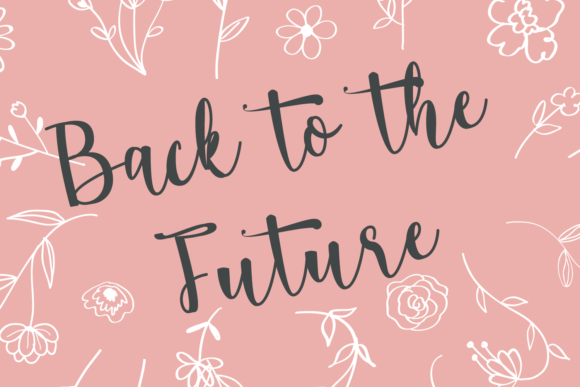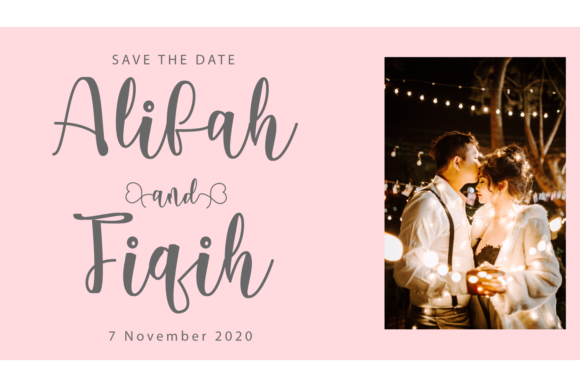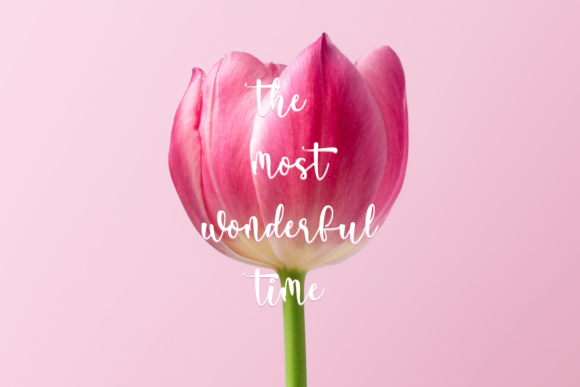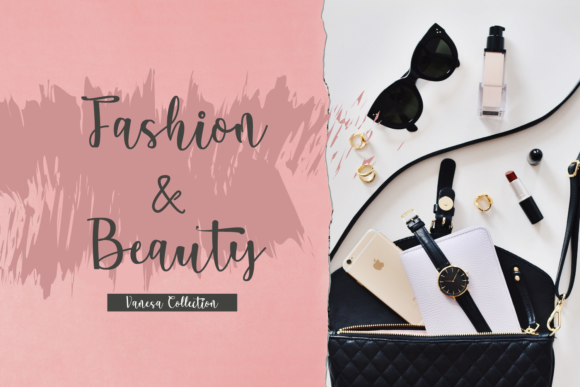
About Flora Font
Introducing “Flora,” a font that exudes both charm and elegance, making it the perfect choice for a wide range of design projects. With its stunning handwritten touch, “Flora” adds a touch of sophistication and beauty to any creative endeavor.
Designed to be versatile and adaptable, “Flora” is well-suited for various occasions and purposes. Whether you’re designing wedding invitations, thank you cards, quotes, greeting cards, logos, business cards, or any other project that requires a touch of handwritten elegance, “Flora” will not disappoint.
The font’s PUA encoding makes it even more user-friendly, allowing you to easily access all of the glyphs and swashes with ease. This means you have a wide array of design possibilities at your fingertips, enabling you to create unique and captivating text compositions effortlessly.
With its varying baseline, “Flora” captures the fluidity of handwritten script, giving your designs a natural and organic feel. The smooth lines and gorgeous glyphs add to its charm, enhancing the overall elegance of your projects.
The inclusion of stunning alternates further elevates “Flora,” allowing you to experiment with different letterforms to create custom and eye-catching designs. This feature gives you the freedom to tailor the font to your specific project, making it truly one-of-a-kind.
When used in wedding invitations, “Flora” sets the tone for a romantic and heartfelt celebration. In thank you cards, it conveys genuine appreciation with its graceful strokes. For quotes and greeting cards, it adds a touch of warmth and sentimentality.
For logos and business cards, “Flora” helps to create a brand identity that is both charming and professional. Whether you’re designing for personal or professional use, this font is sure to leave a lasting impression on your audience.
Let “Flora” become your go-to font for projects that require an elegant and handwritten touch. Embrace its versatility and explore the various ways it can enhance your designs. With “Flora” in your creative toolkit, you have a font that radiates charm and sophistication, transforming your projects into true works of art.